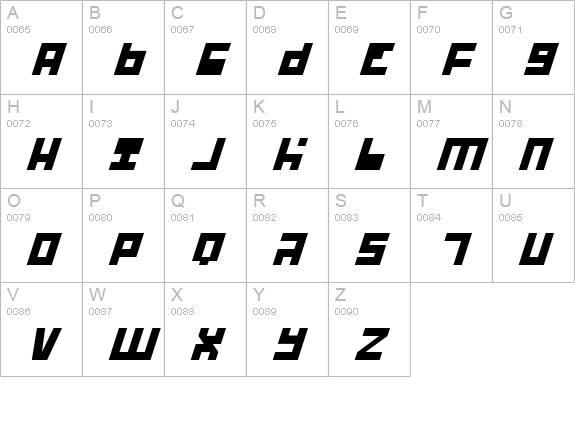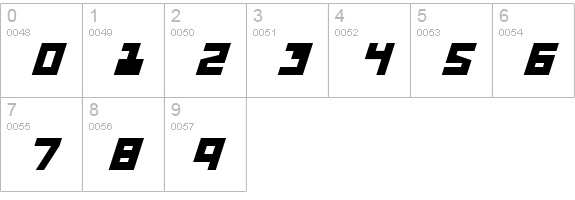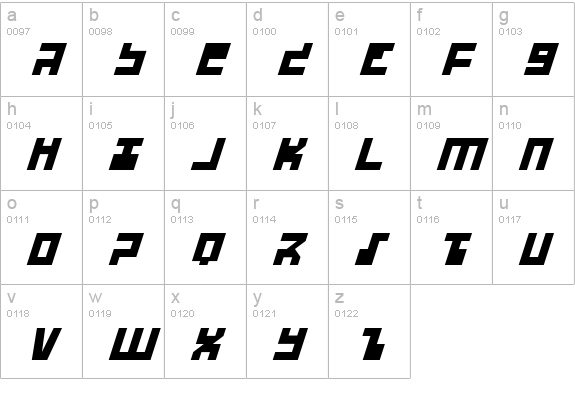
UFO Hunter Expanded Italic is a distinctive, extended-width, italic variant in the UFO typeface family \xE2\x80\x94 well suited to design and typography projects.
Introducing UFO Hunter Expanded Italic font, a sleek and futuristic typeface perfect for all your sci-fi inspired designs. This unique font features elongated and bold letterforms that exude a sense of mystery and otherworldly charm. Whether you're creating posters, book covers, or digital art, UFO Hunter Expanded Italic font will add a touch of extraterrestrial flair to your projects. Best of all, this captivating font is available for free download at FontsMarket.com! Embrace the unknown and elevate your designs with UFO Hunter Expanded Italic font today.